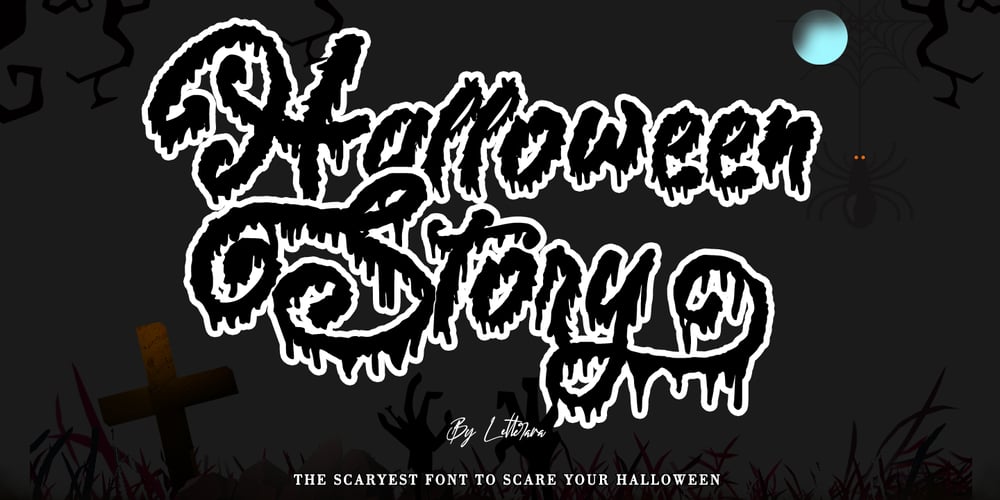
Halloween Story Font Family was designed by Thomas Aradea and published by Letterara. Halloween Story contains 2 styles and family package options. Halloween Story is the ideal font for any Halloween project. Get inspired by its scary feel, and turn any Horror project into an eye-catcher!